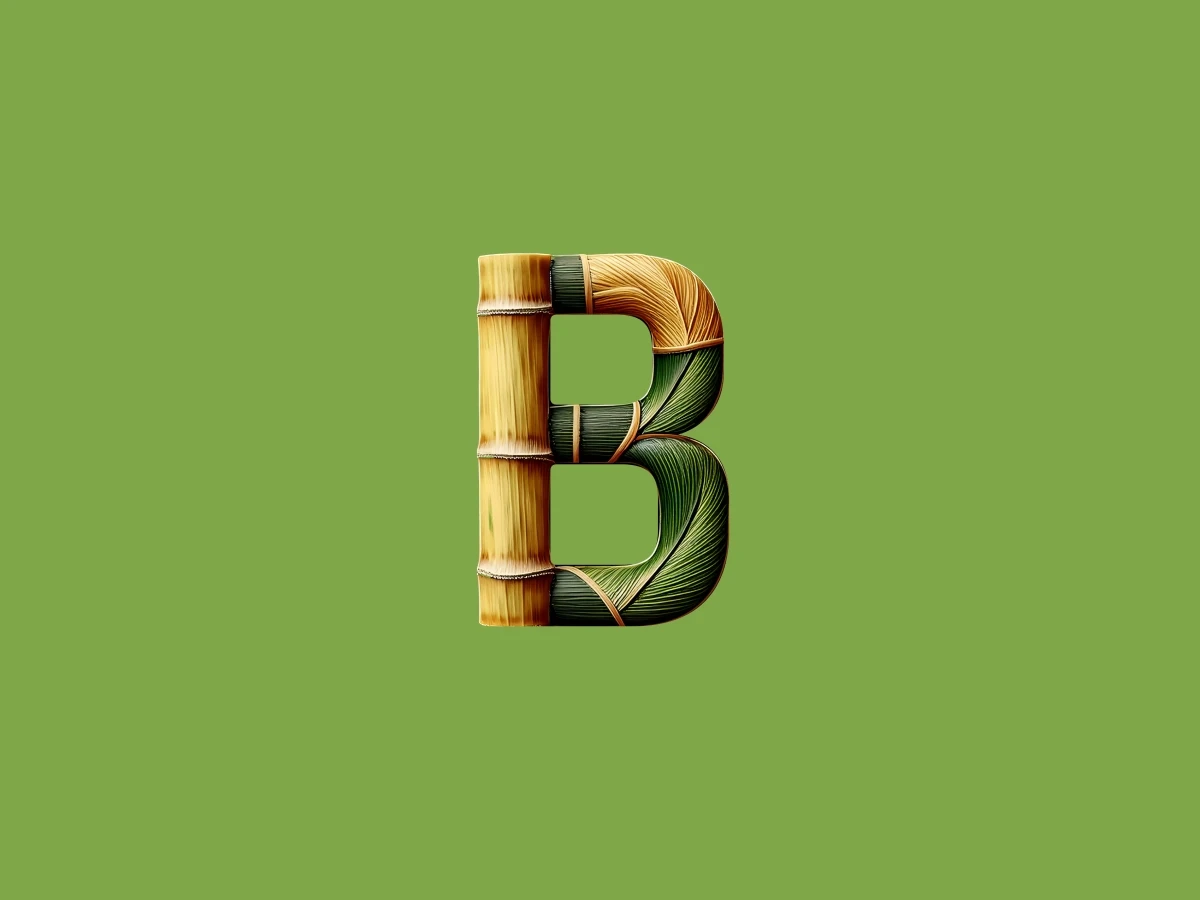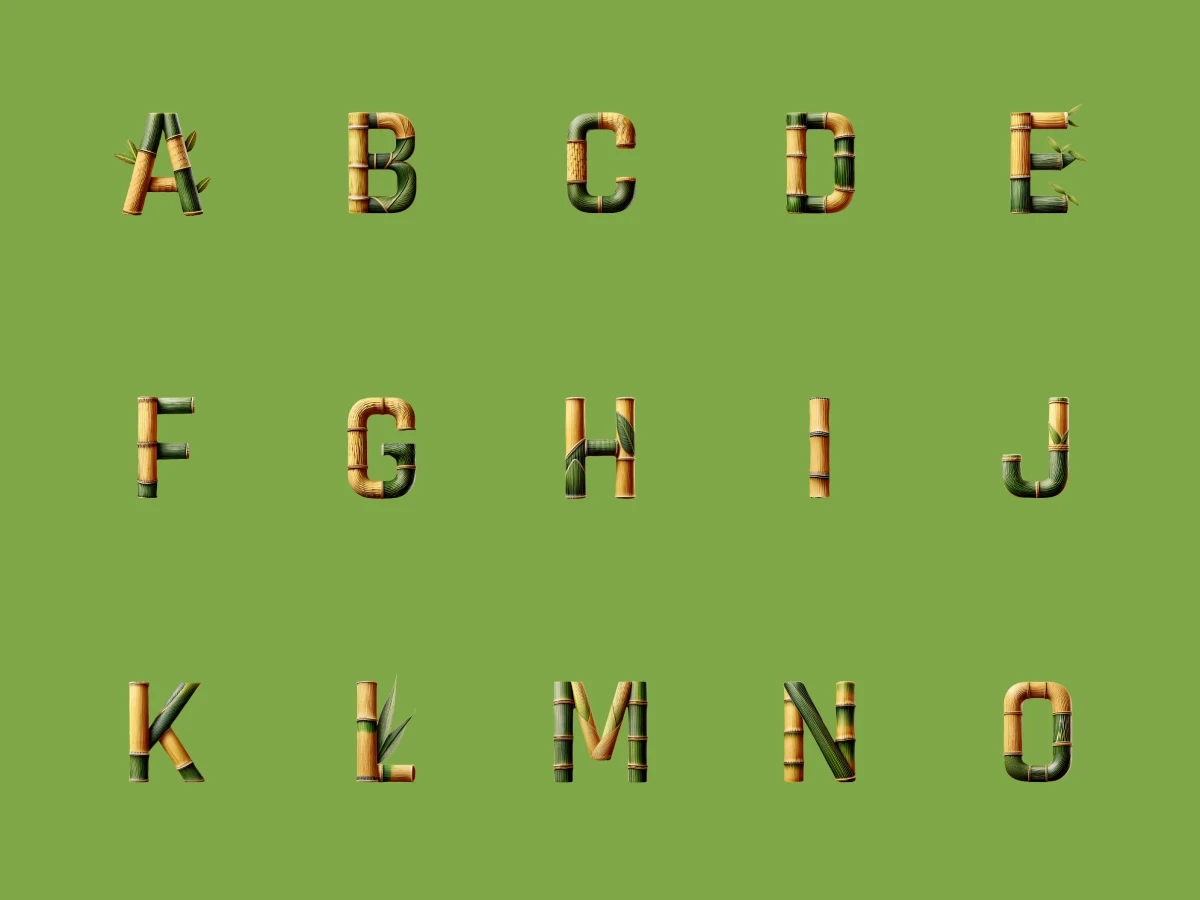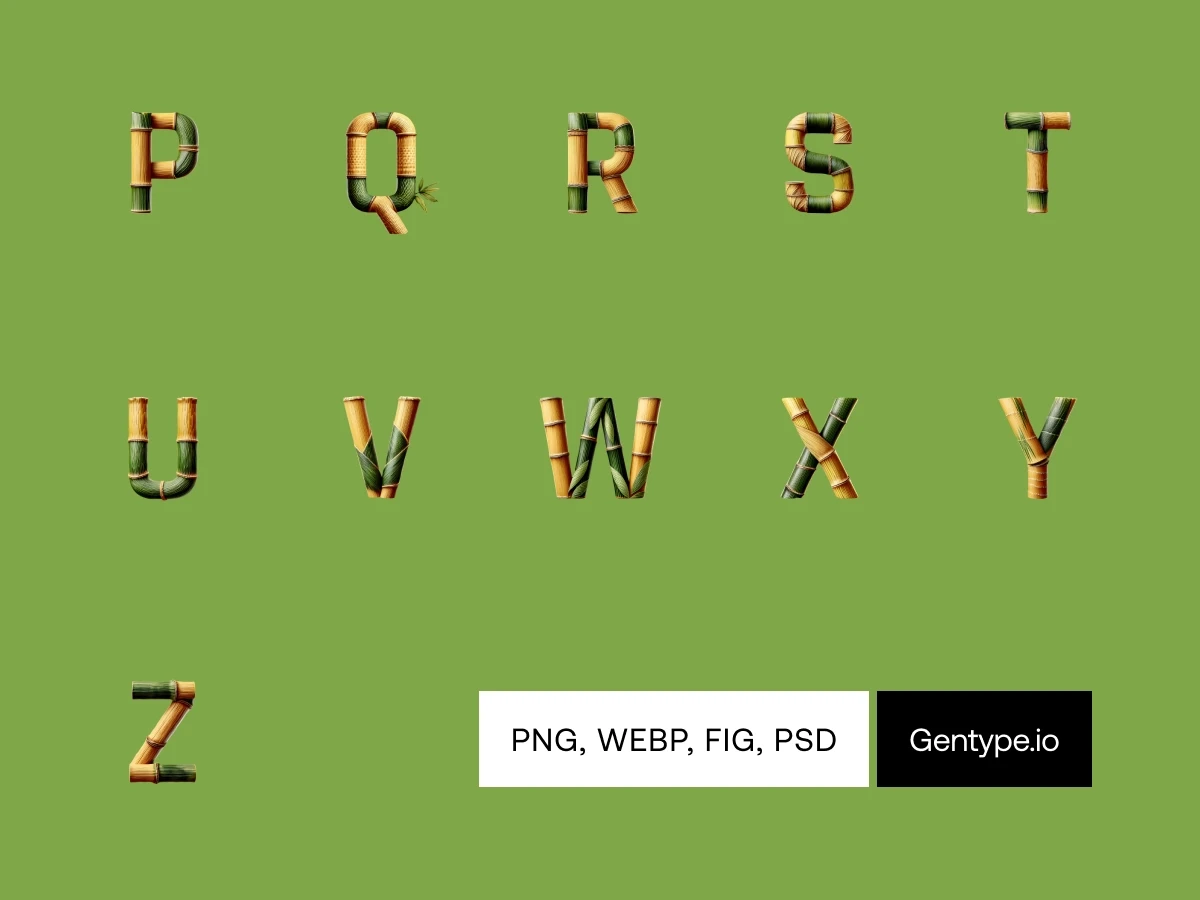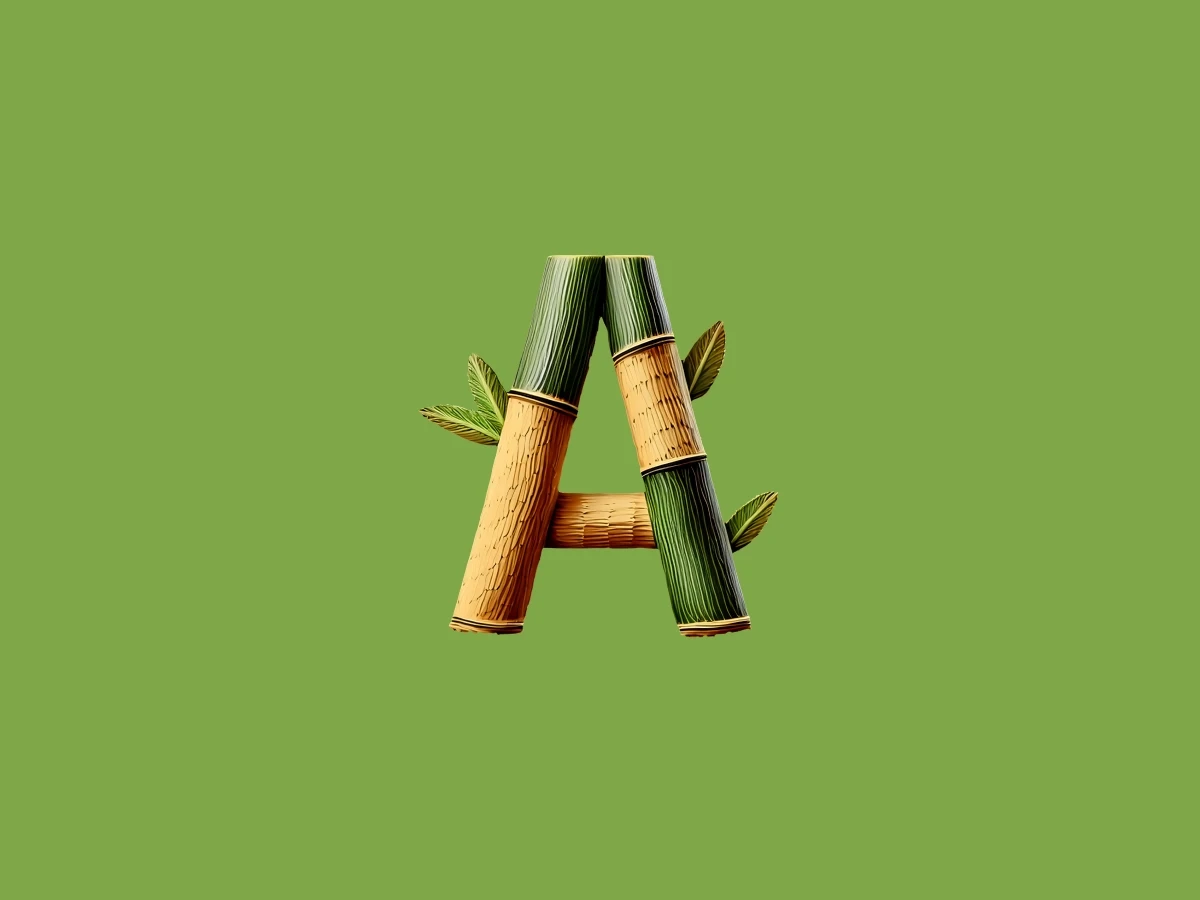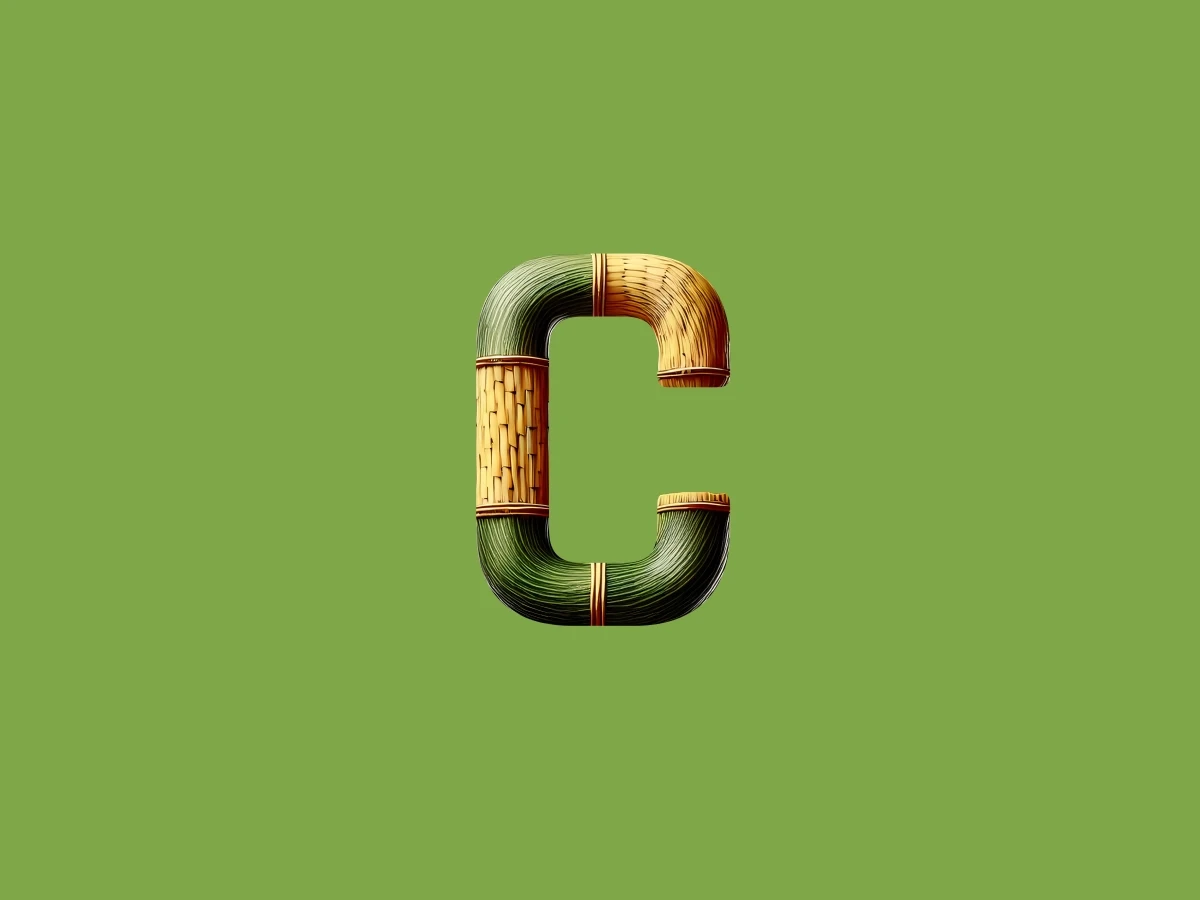
26 characters
Create a serene sanctuary with lush bamboo textures that bring the calm of nature into your designs. Watch out, these letters can get you staring at the screen for few hours. Be careful!